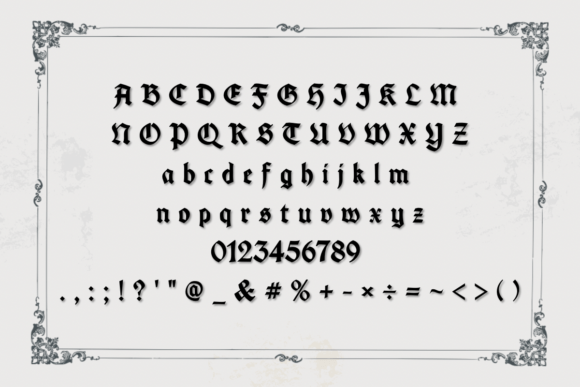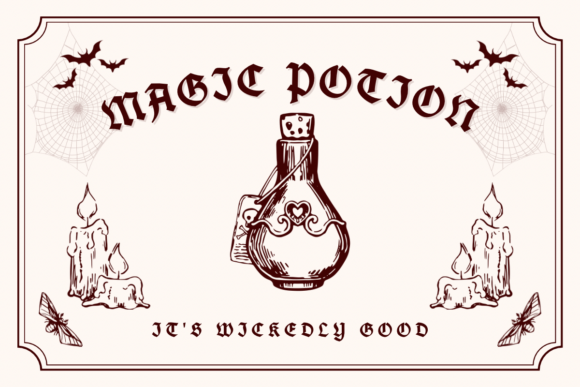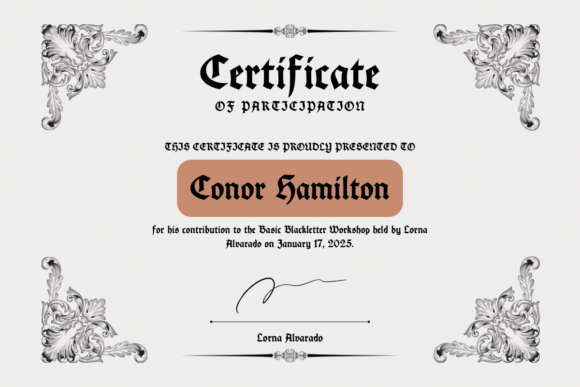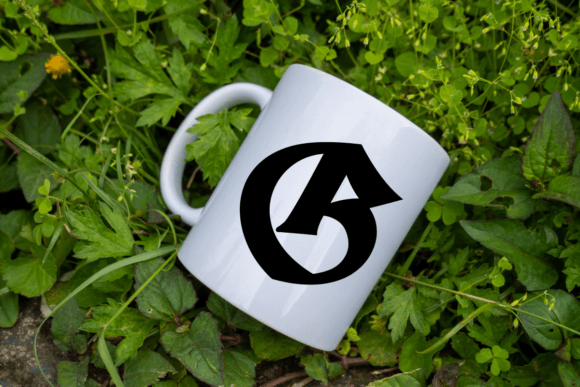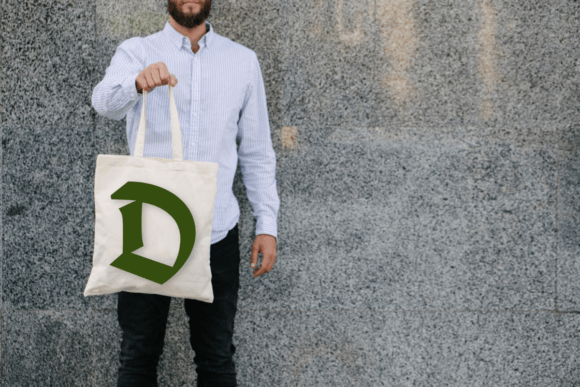
Unleash the Power of Dark Ink Font: Elevate Your Designs with a Touch of Gothic Elegance
In the world of typography, few fonts evoke the sense of mystery, elegance, and drama as effectively as the Dark Ink Font. This bold, blackletter-style font is characterized by its sharp, dramatic strokes that instantly command attention. With its classic, gothic feel, Dark Ink Font is the perfect choice for designers and crafters looking to infuse their projects with a strong, vintage, or medieval aesthetic.
The Distinctive Features of Dark Ink Font
Dark Ink Font boasts a unique set of features that set it apart from other fonts. Its letters are stylish and striking, with sharp, angular lines that give it a distinctive gothic look. The bold strokes and dramatic flair of this font make it ideal for a wide range of design applications, from logos and titles to posters and packaging.
Why Choose Dark Ink Font?
So, why should you choose Dark Ink Font for your next design project? Here are just a few compelling reasons:
- Elegance and Sophistication: Dark Ink Font adds a touch of elegance and sophistication to any design, making it perfect for high-end branding, luxury packaging, and premium products.
- Versatility: This font is incredibly versatile, and can be used in a wide range of design applications, from digital projects to print materials.
- Emotional Connection: The dramatic, gothic feel of Dark Ink Font evokes a strong emotional response, making it perfect for designs that aim to create a sense of mystery, intrigue, or drama.
- Timeless Appeal: Unlike trendy fonts that quickly go out of style, Dark Ink Font has a timeless appeal that ensures your designs will remain relevant for years to come.
Design Applications for Dark Ink Font
Dark Ink Font is an incredibly versatile font that can be used in a wide range of design applications, including:
- Logos and Branding: Use Dark Ink Font to create a bold, memorable logo that makes a lasting impression.
- Posters and Flyers: Add a touch of drama and elegance to your posters and flyers with Dark Ink Font.
- Packaging Design: Use Dark Ink Font to create eye-catching packaging that stands out on store shelves.
- Digital Design: Dark Ink Font is perfect for digital projects, including social media graphics, website headers, and email marketing campaigns.
Tips for Using Dark Ink Font Effectively
To get the most out of Dark Ink Font, here are a few tips to keep in mind:
- Use it sparingly: Dark Ink Font is a bold font that can quickly overwhelm your design. Use it sparingly to create emphasis and add visual interest.
- Pair it with contrasting fonts: Pair Dark Ink Font with contrasting fonts to create visual interest and add depth to your design.
- Experiment with colors: Dark Ink Font looks stunning in a range of colors, from rich blacks and dark grays to bold brights and metallics.
Dark Ink Font is a powerful design tool that can elevate your projects with its bold, gothic elegance. With its sharp, dramatic strokes and classic, blackletter-style design, this font is perfect for designers and crafters looking to create striking, memorable designs. Whether you’re working on a logo, poster, or packaging design, Dark Ink Font is sure to make a lasting impression.